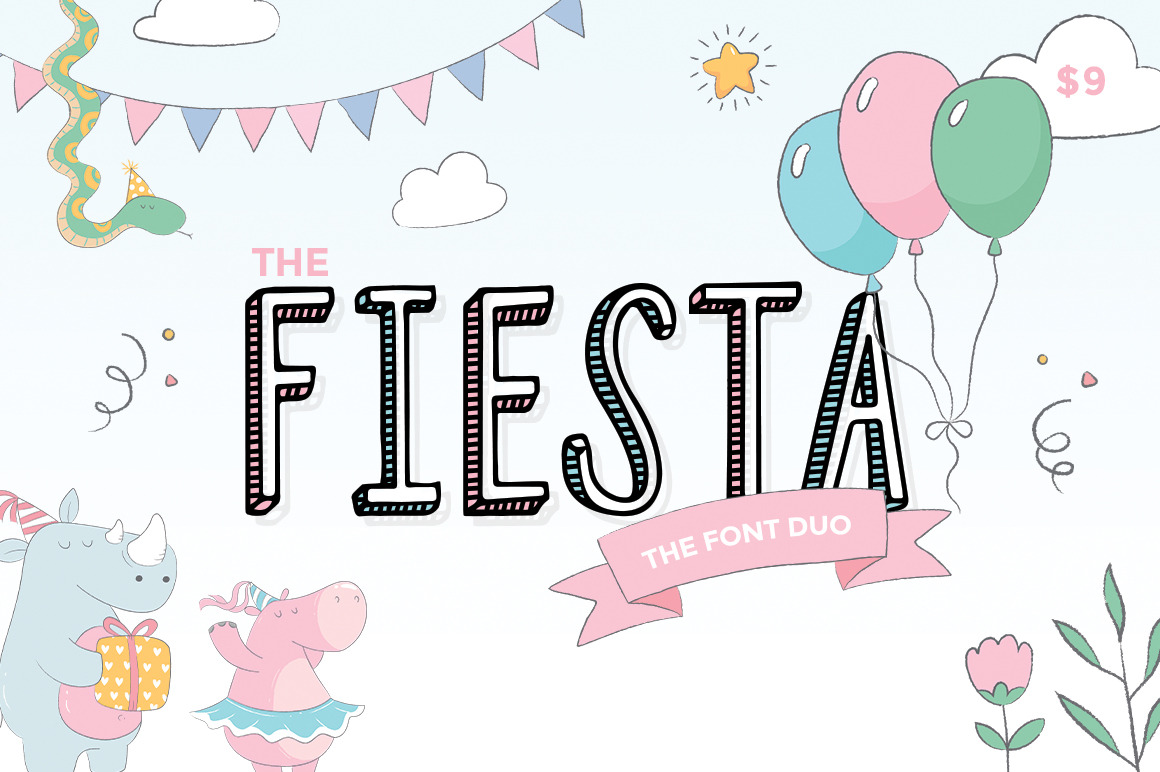
Fiesta Font Duo (ONLY $9)
It's party time at the Salt & Pepper Designs HQ! To celebrate we have this wonderful new font duo: Fiesta! Plain for the day and stripy for the after party! Combine both for a fun font pairing or use alone! Enjoy!